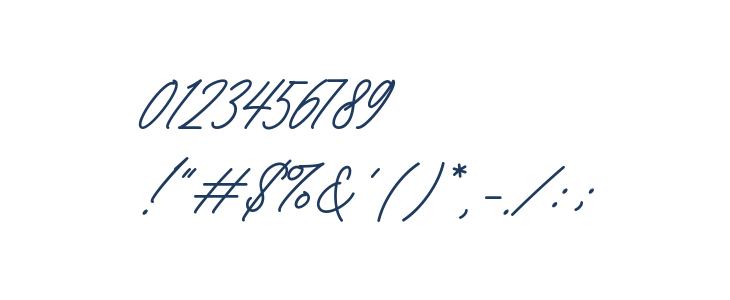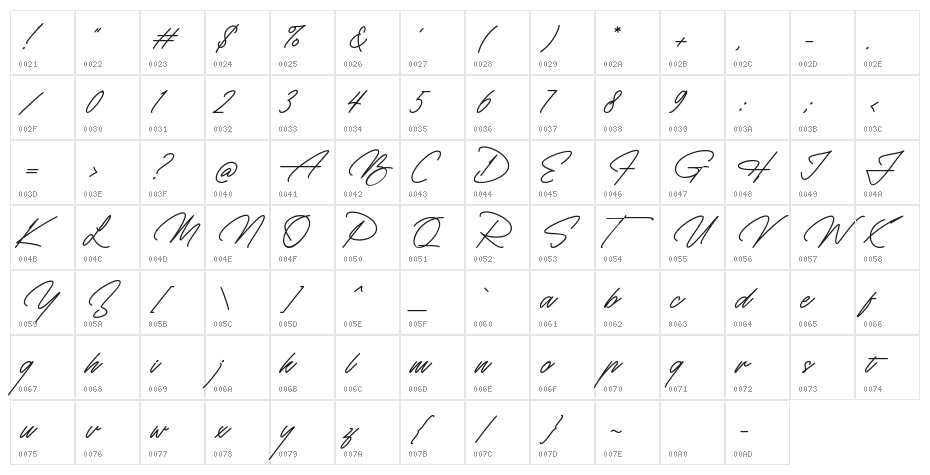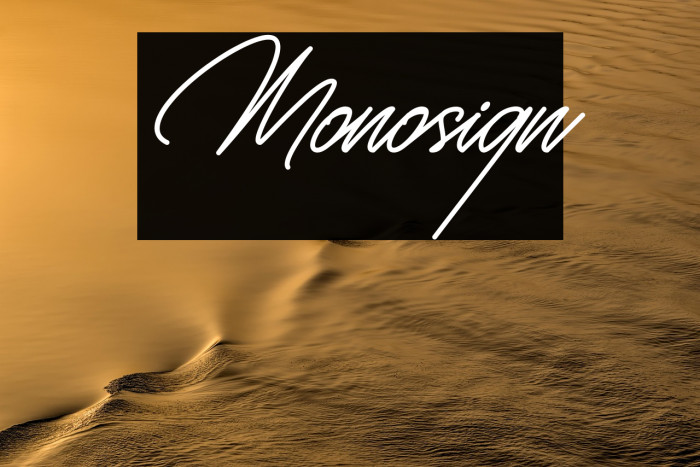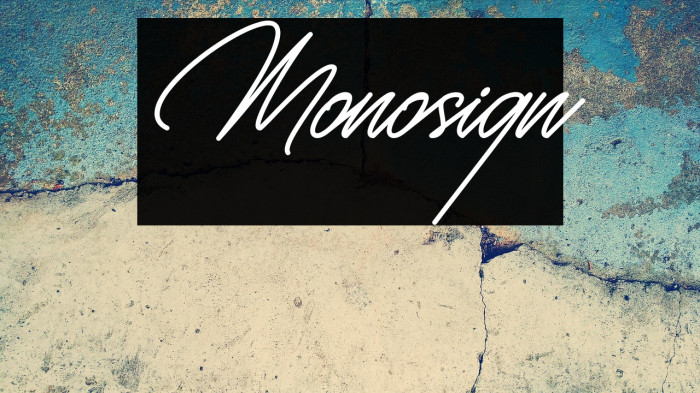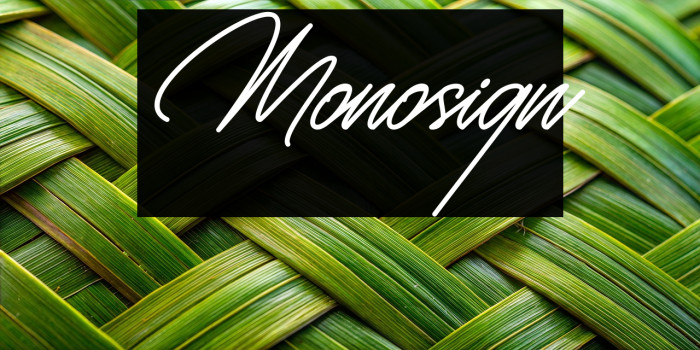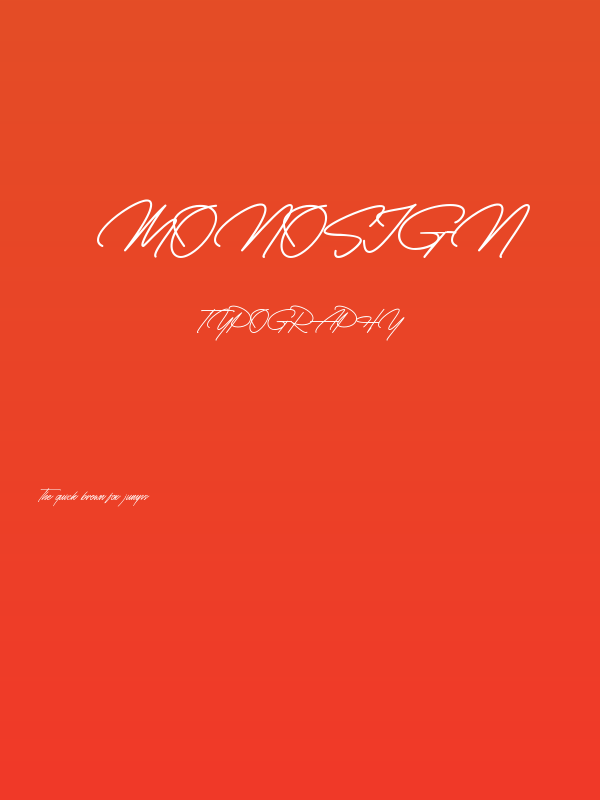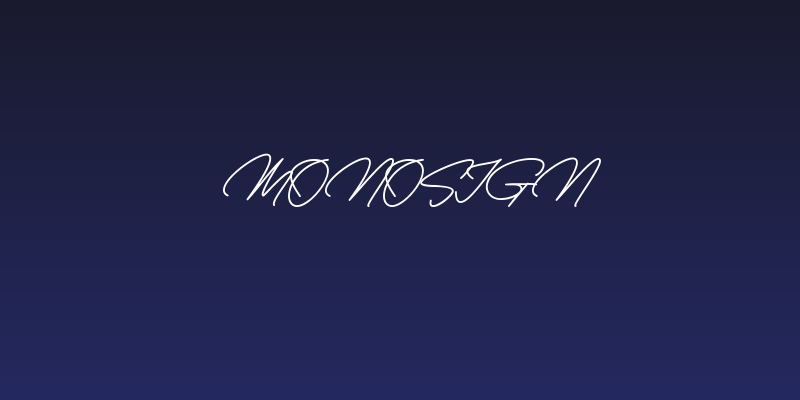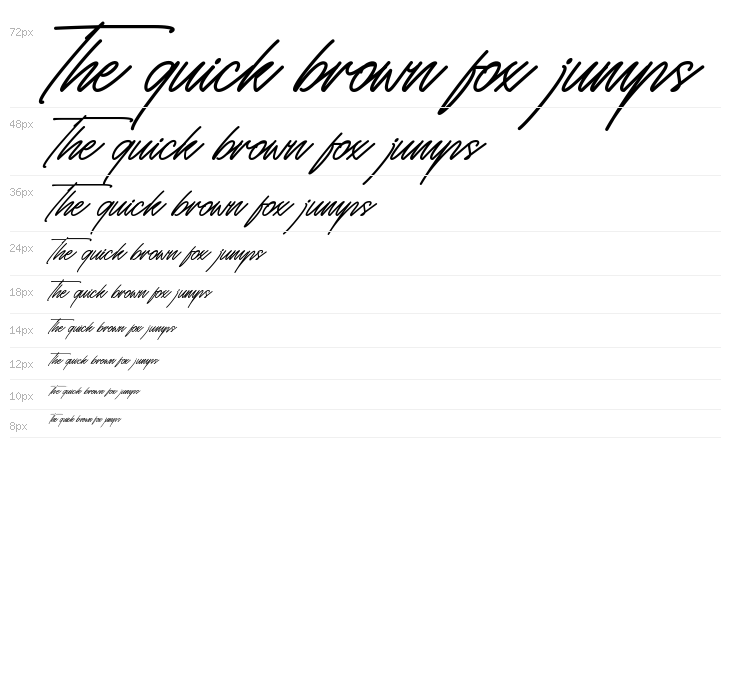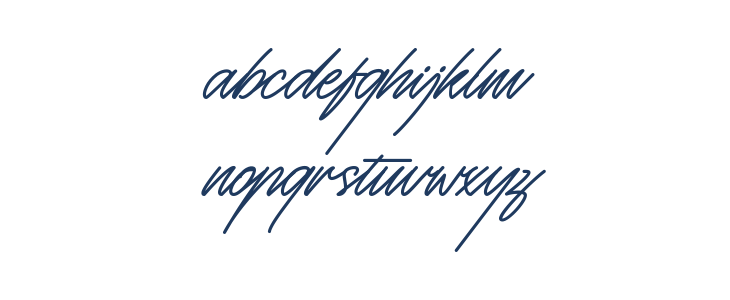
Monosign Font
Monosign Description
This font features a flowing, cursive style that mimics elegant handwriting. The characters are connected, giving it a seamless and fluid appearance. The uppercase letters are slightly larger and more ornate, while the lowercase letters maintain a consistent, smooth flow. The numerals and special characters are designed to match the overall script style, ensuring a cohesive look across all text elements. The strokes are moderately thick, providing good readability while maintaining the decorative script aesthetic.
| Use Case | Logos, Invitations, Decorative headings |
| Proposed Projects | Ideal for wedding invitations, elegant branding, personal signatures, and decorative headings. |